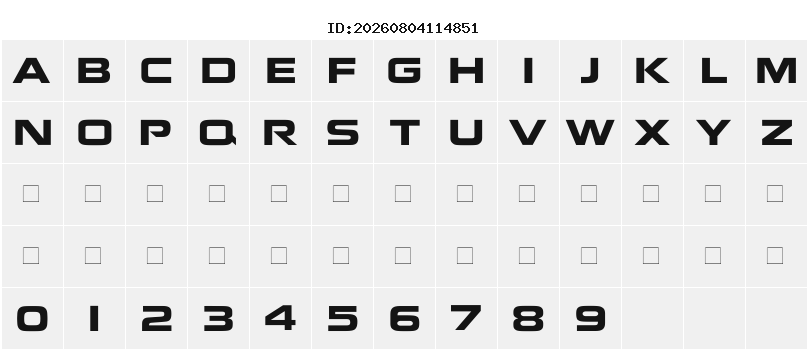
• Font Name: NokianvirallinenkirjasinREGULAR
• Font Style: REGULAR
• Full Font Name: NokianvirallinenkirjasinREGULAR
• PostScript Name: NokianvirallinenkirjasinREGULAR-Regular
About NokianvirallinenkirjasinREGULAR.ttf
NokianvirallinenkirjasinREGULAR.ttf is a modern, elegant sans-serif font designed for ultimate readability and visual harmony. Perfect for branding, headlines, web design, and print materials.